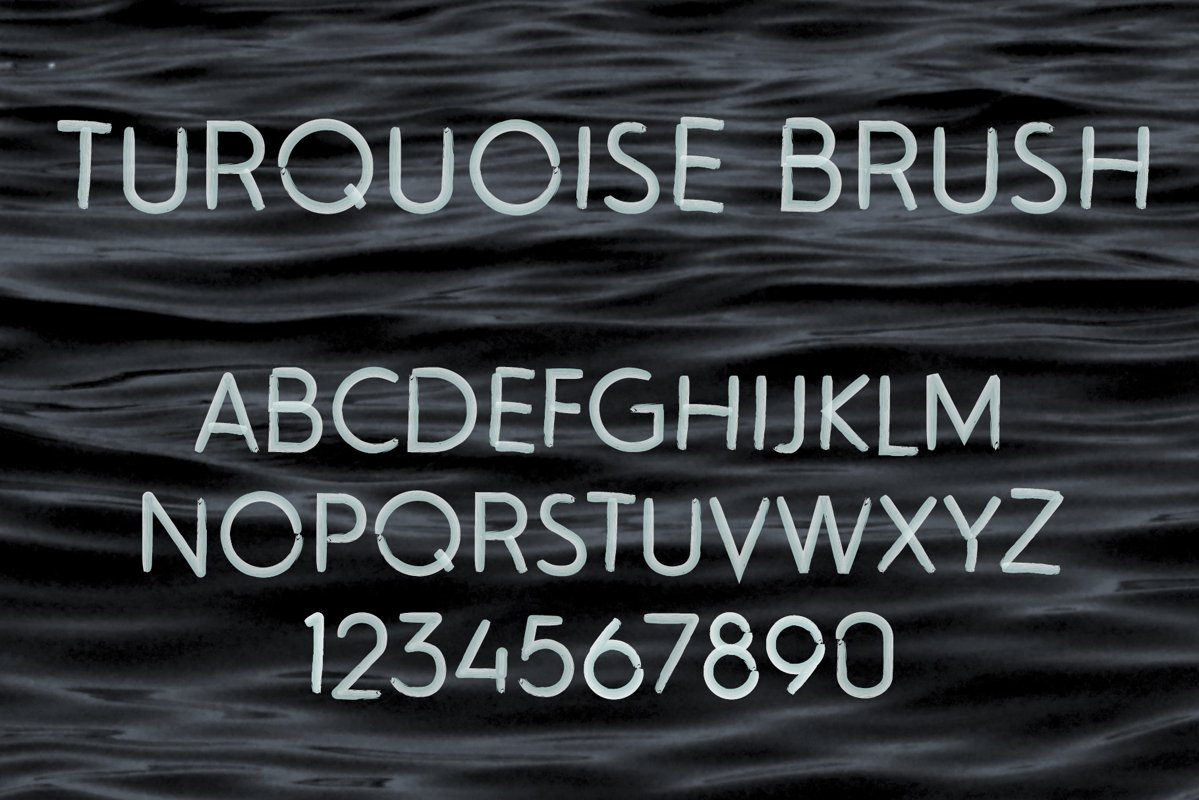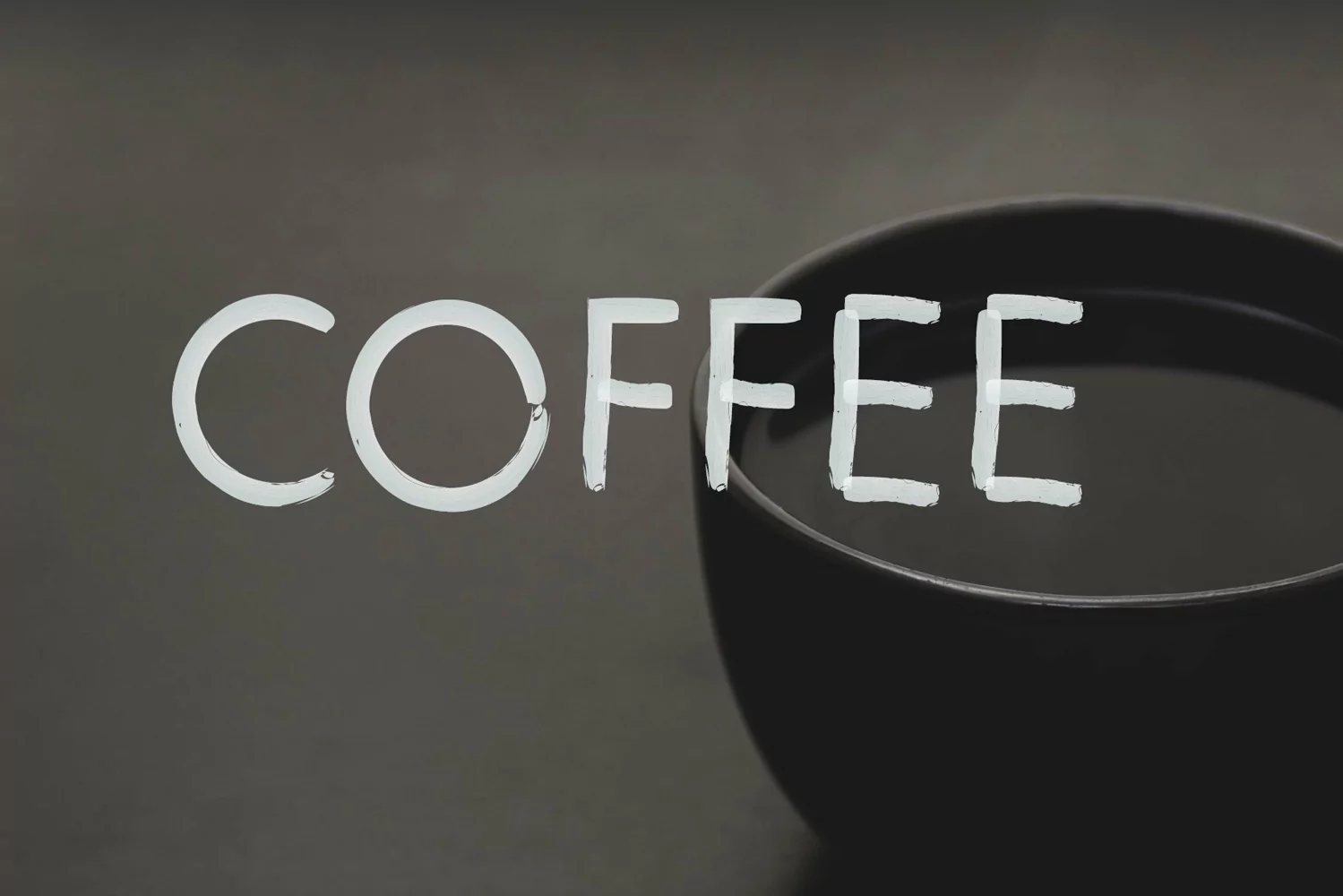
Note: SVG fonts work only in Photoshop CC 2017 or Illustrator CC 2018 and later.Turquoise Brush (SVG font) is a hand-painted sans serif.
The SVG font tries to mimic acrylics light turquoise brushstroke.It is made with medium acrylics brushstrokes that give an impression of a real hand-painted effect.